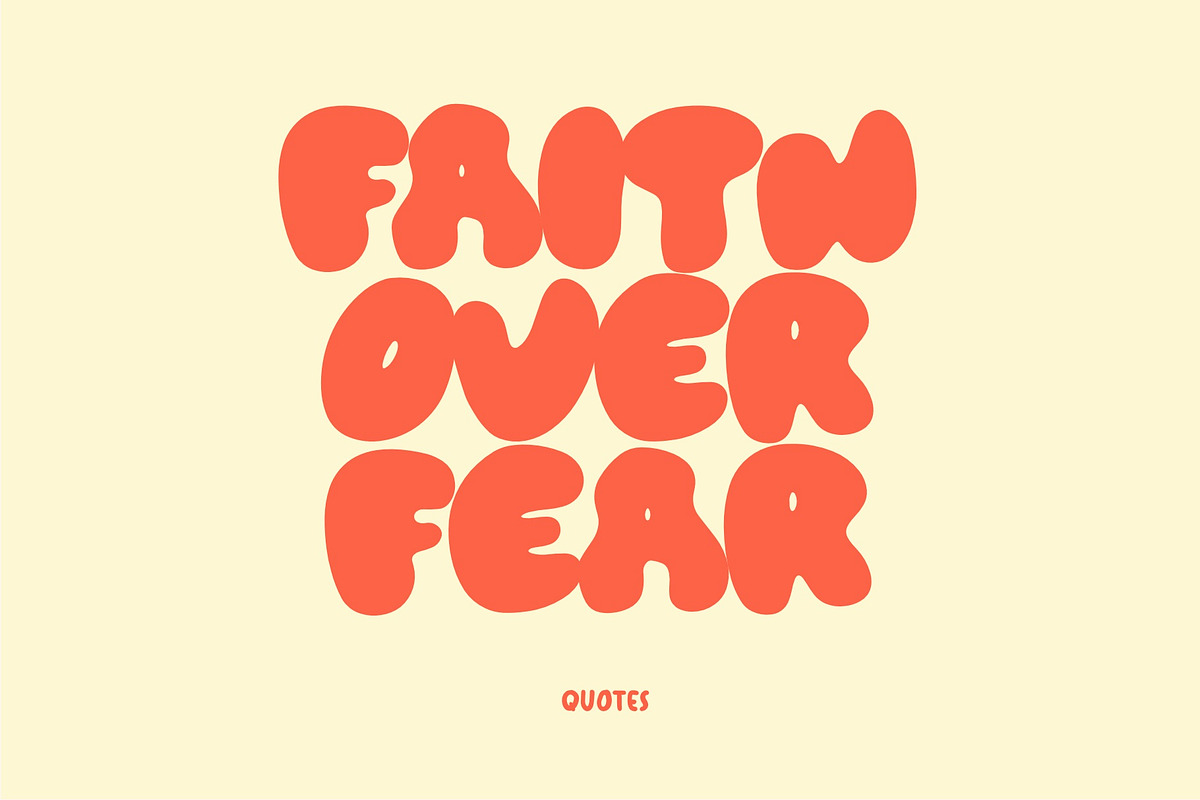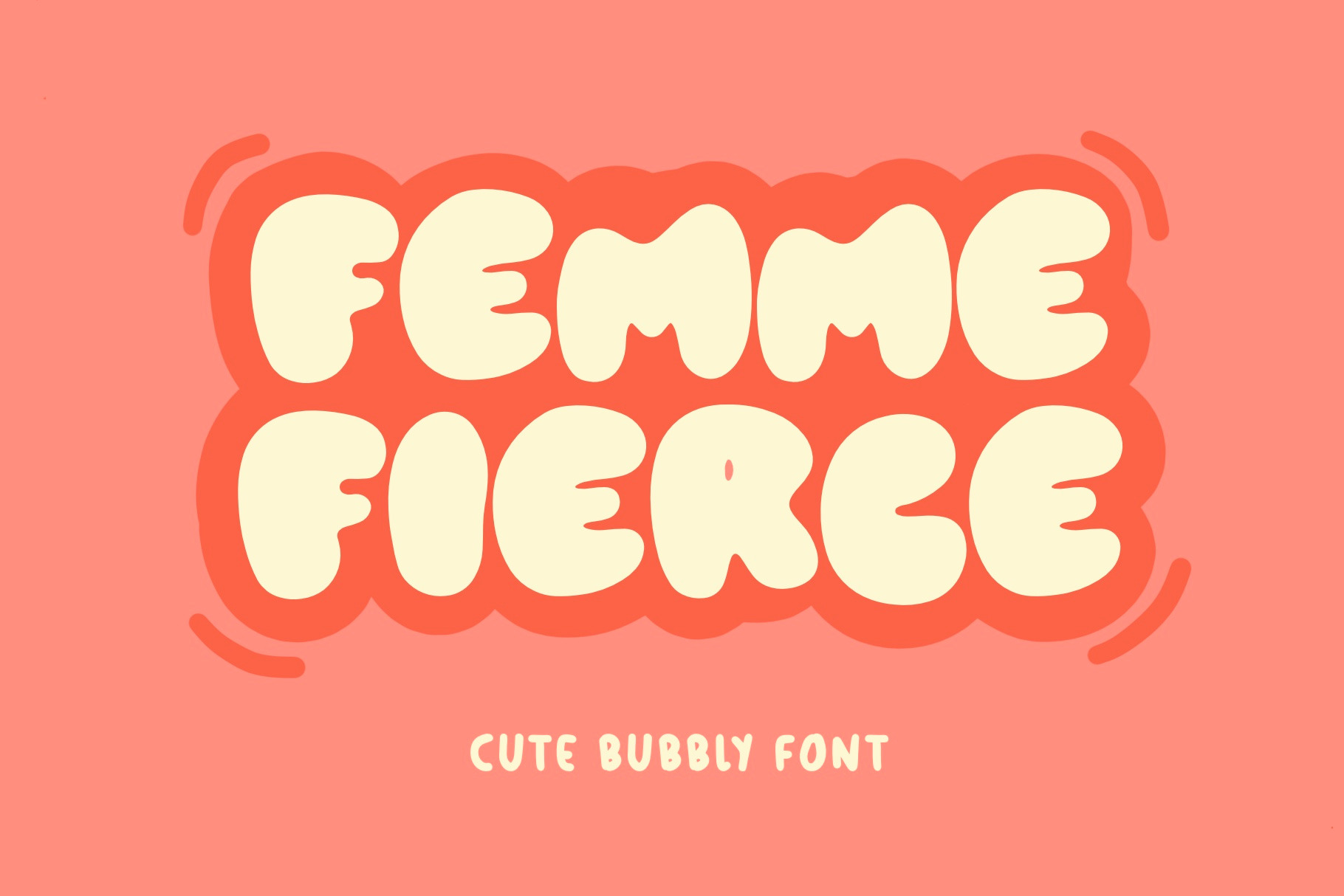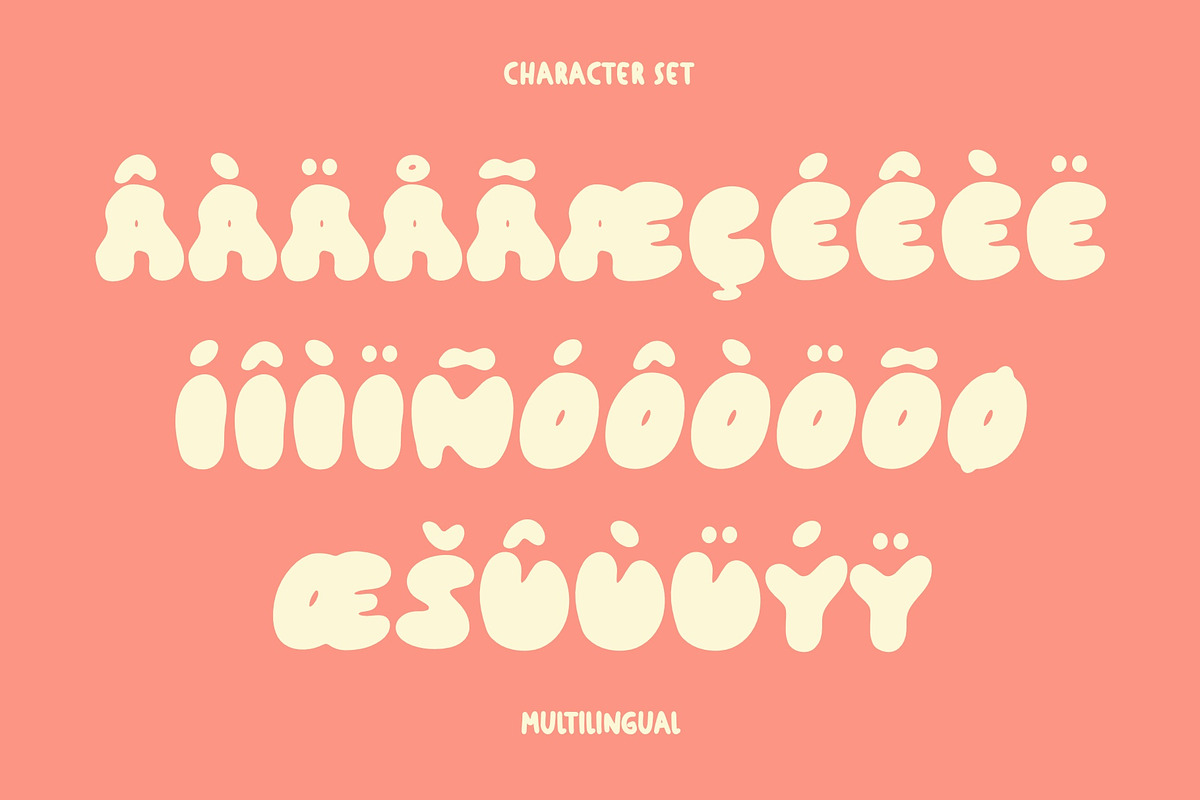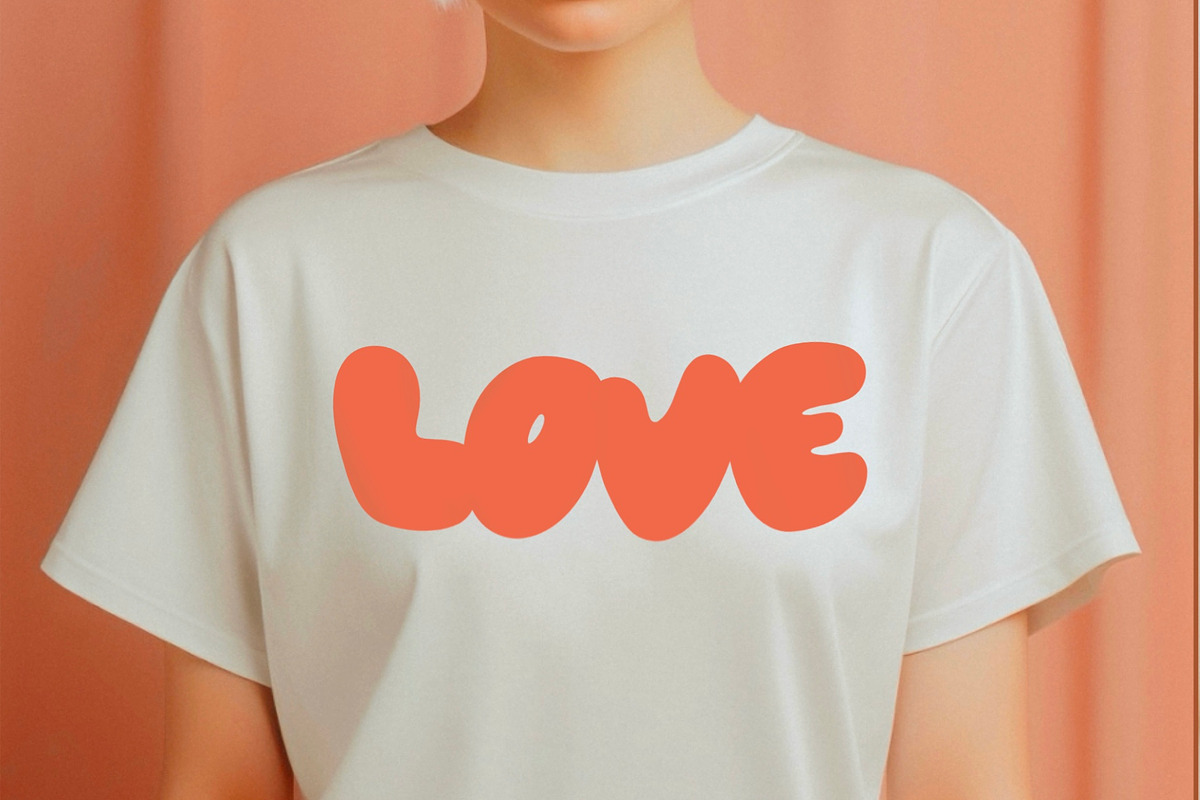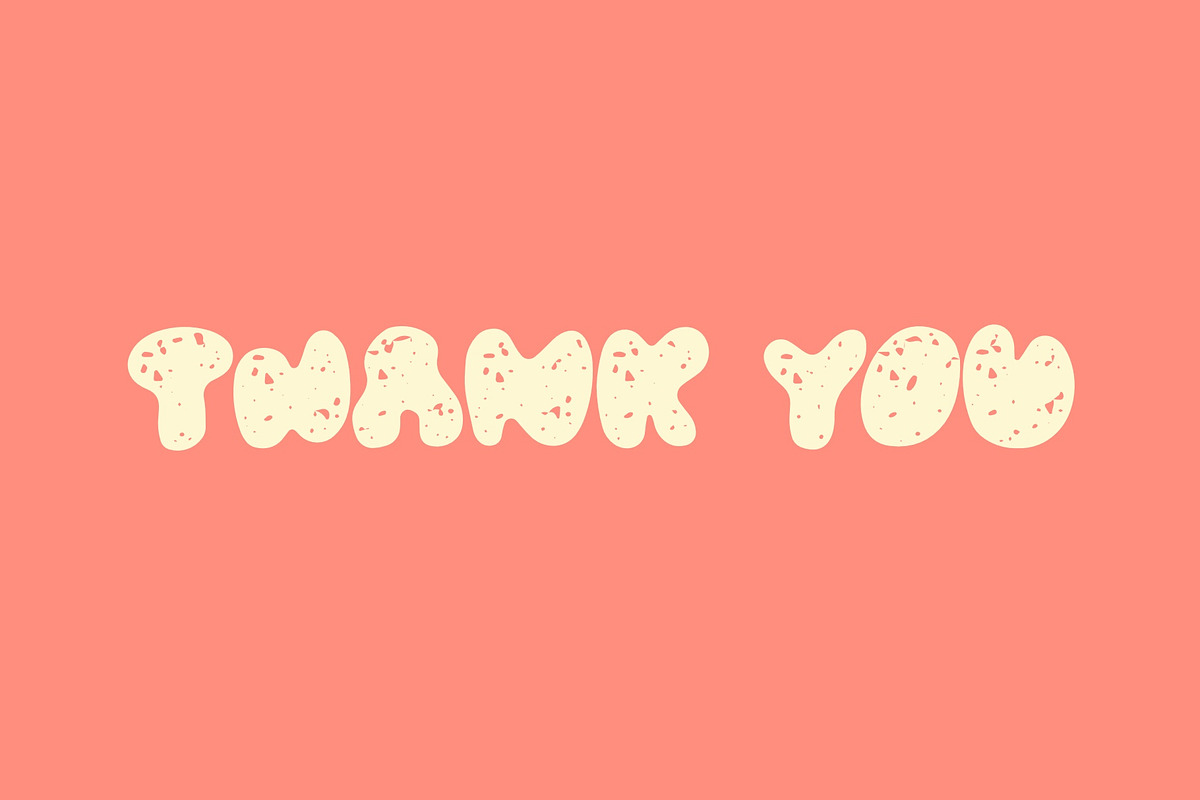
Femme Fierce - Cute Bubble Font
Femme Fierce is a delightful font characterized by its cute bubble typeface, exuding a playful and charming vibe. The rounded edges and whimsical curves of each letter create a sense of approachable elegance, making it ideal for projects that aim to convey a balance between sweetness and sophistication. Whether used in invitations, branding, or creative designs, Femme Fierce captivates with its friendly aesthetic, inviting the viewer into a world of charming visual expression.